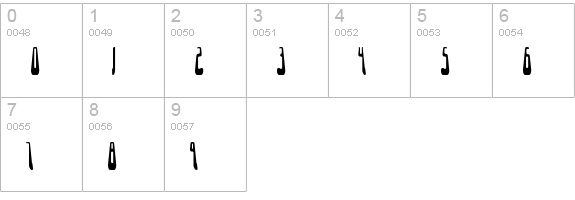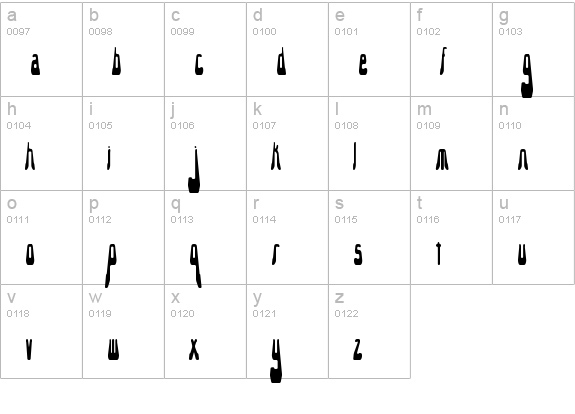
10.15 Saturday Night R BRK Font Details
Experience the captivating allure of 10.15 Saturday Night R BRK font, a stylish and contemporary typeface that exudes sophistication and elegance. Its sleek lines and modern design make it perfect for a variety of projects, from branding to editorial design. This versatile font is sure to elevate your creations and leave a lasting impression on your audience. Best of all, 10.15 Saturday Night R BRK font is freely available to download at FontsMarket.com. Take advantage of this amazing offer and add this stunning font to your collection today. Don't miss out on the opportunity to enhance your designs with the beauty and grace of 10.15 Saturday Night R BRK font. Download it now and let your creativity shine!